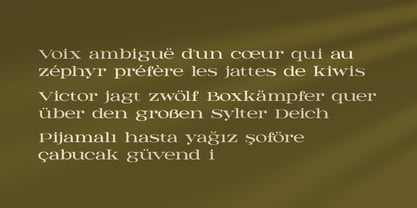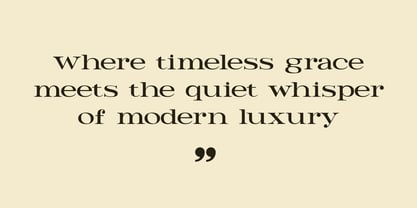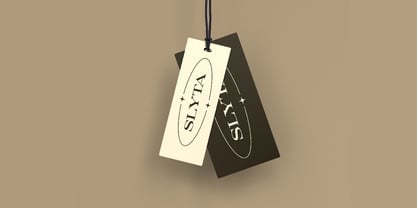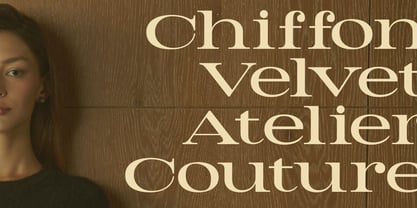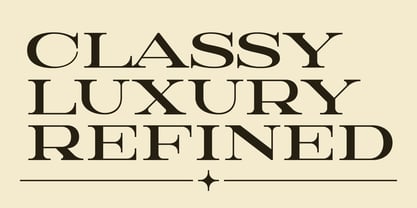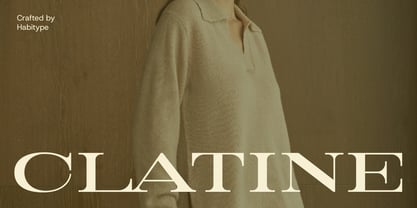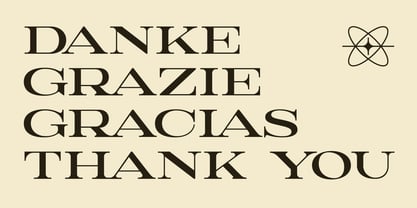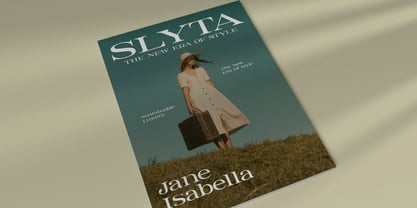
Clatine
by Habitype
The Clatine Font Family was designed by Fahrul Saputra and published by Habitype. Clatine contains 1 styles. More about this family
Clatine is a Didone serif font tailored for the modern fashionista. Designed to capture the effortless sophistication of the runway, it brings a sense of timeless luxury and high-class attitude to your work.
With its striking, razor-sharp contrast and beautifully sculpted curves, Clatine acts like a perfectly tailored piece of clothing for your design. It is the ultimate choice for high-end fashion branding, editorial magazine layouts, luxury beauty packaging, or any premium project that demands an undeniable presence and an upscale, feminine edge.
Designers: Fahrul Saputra
Foundry: Habitype